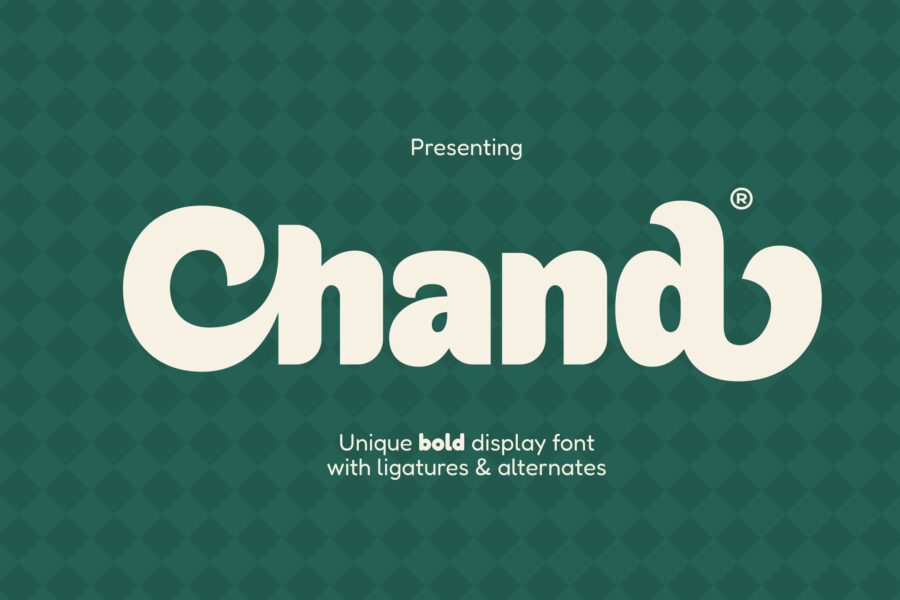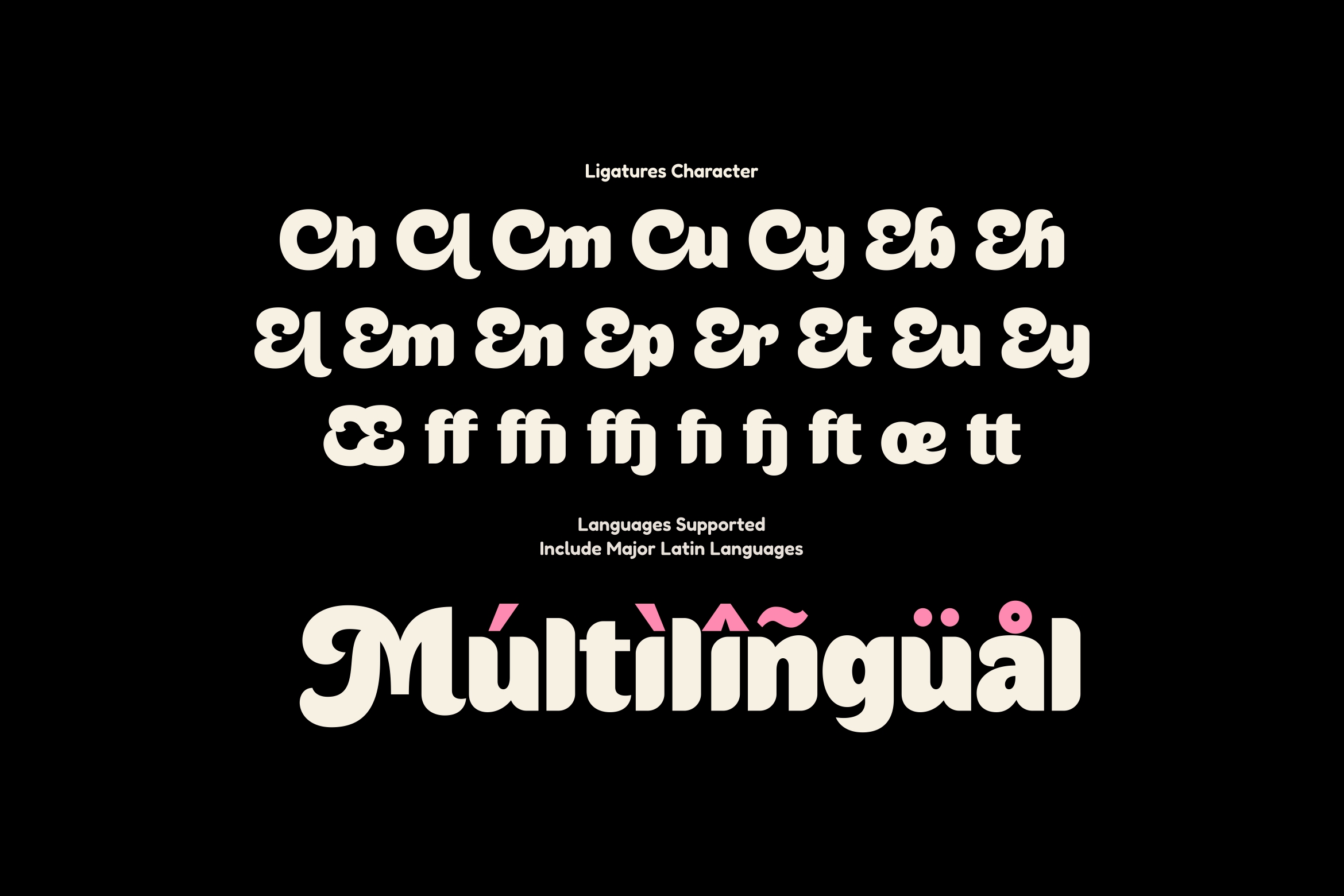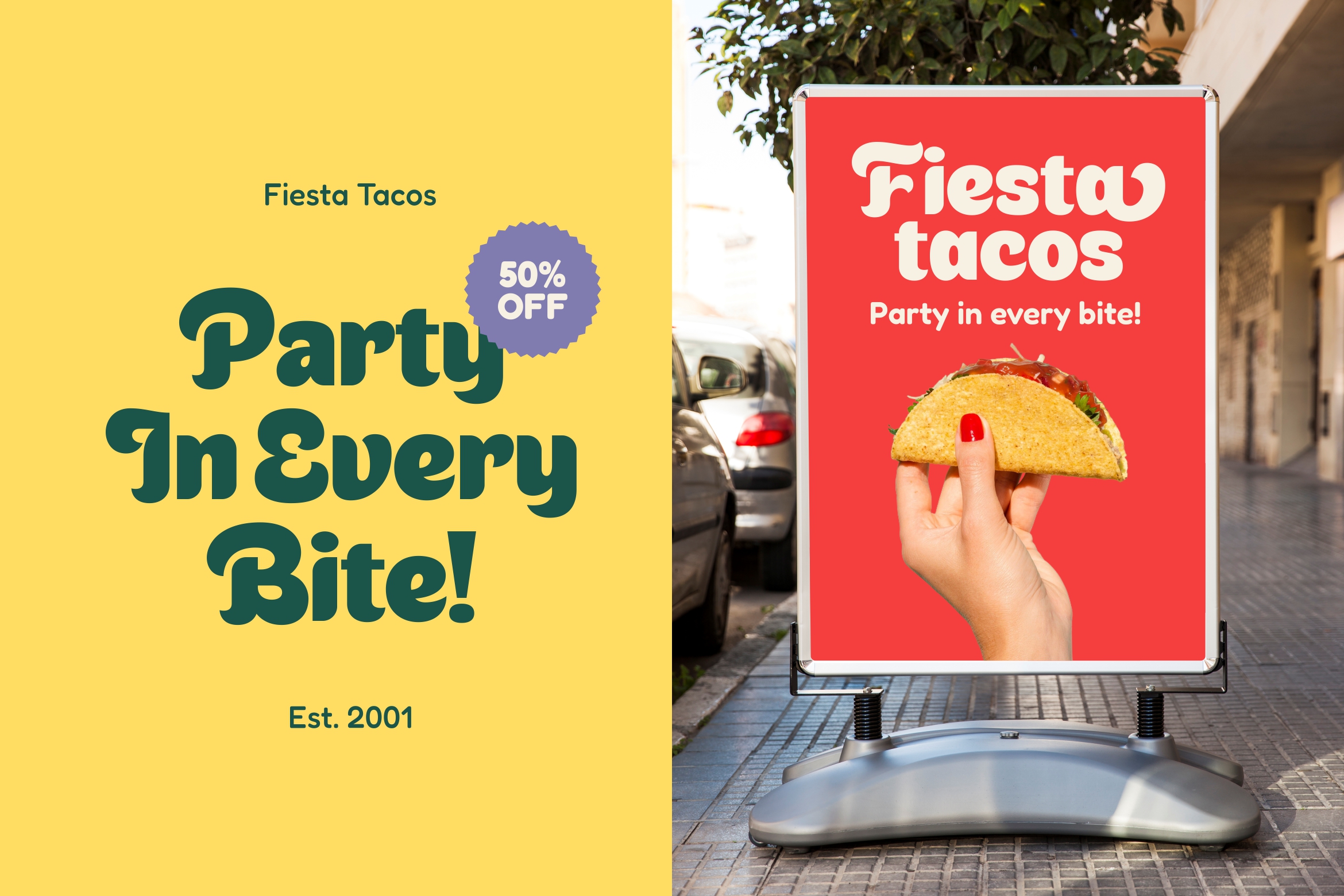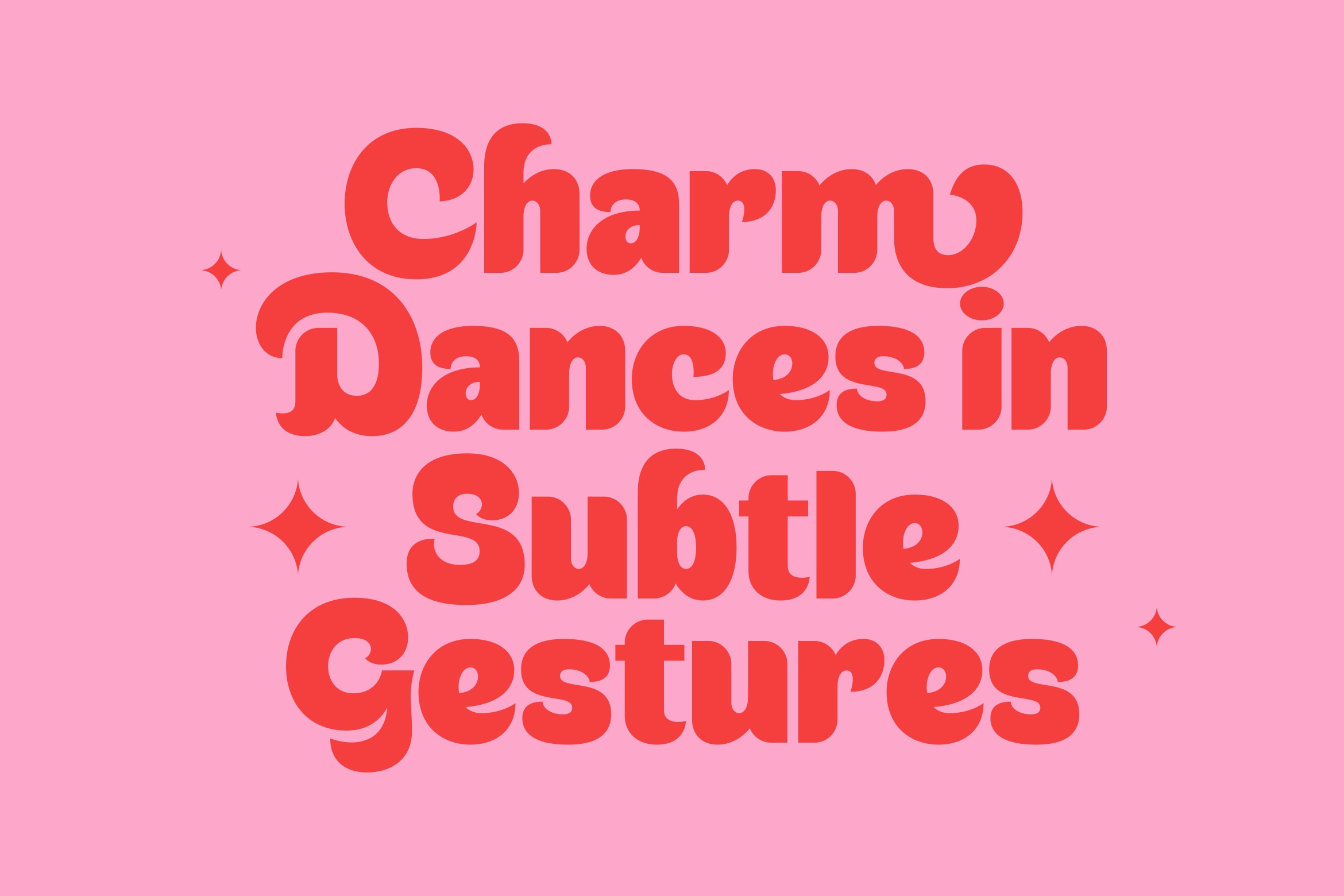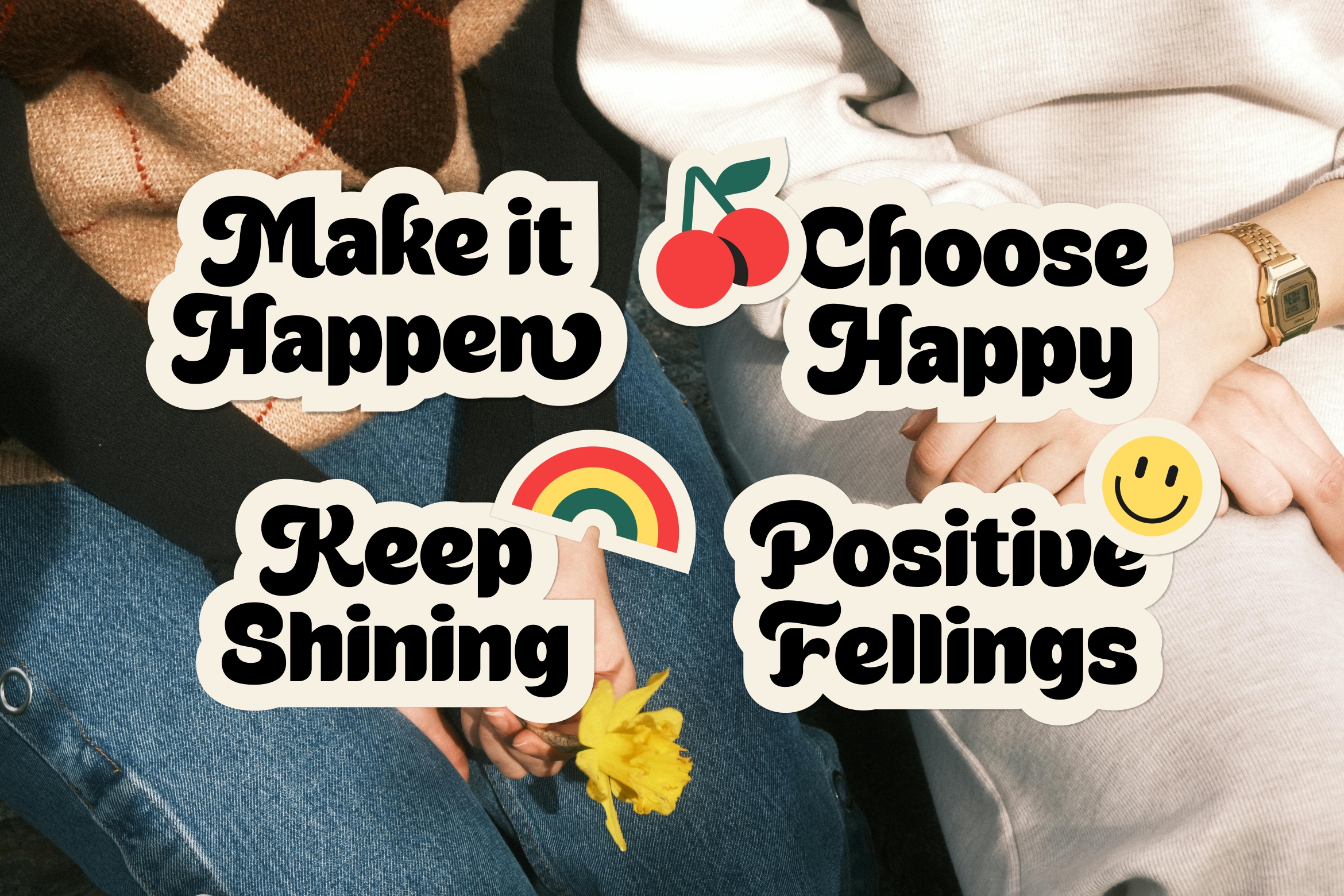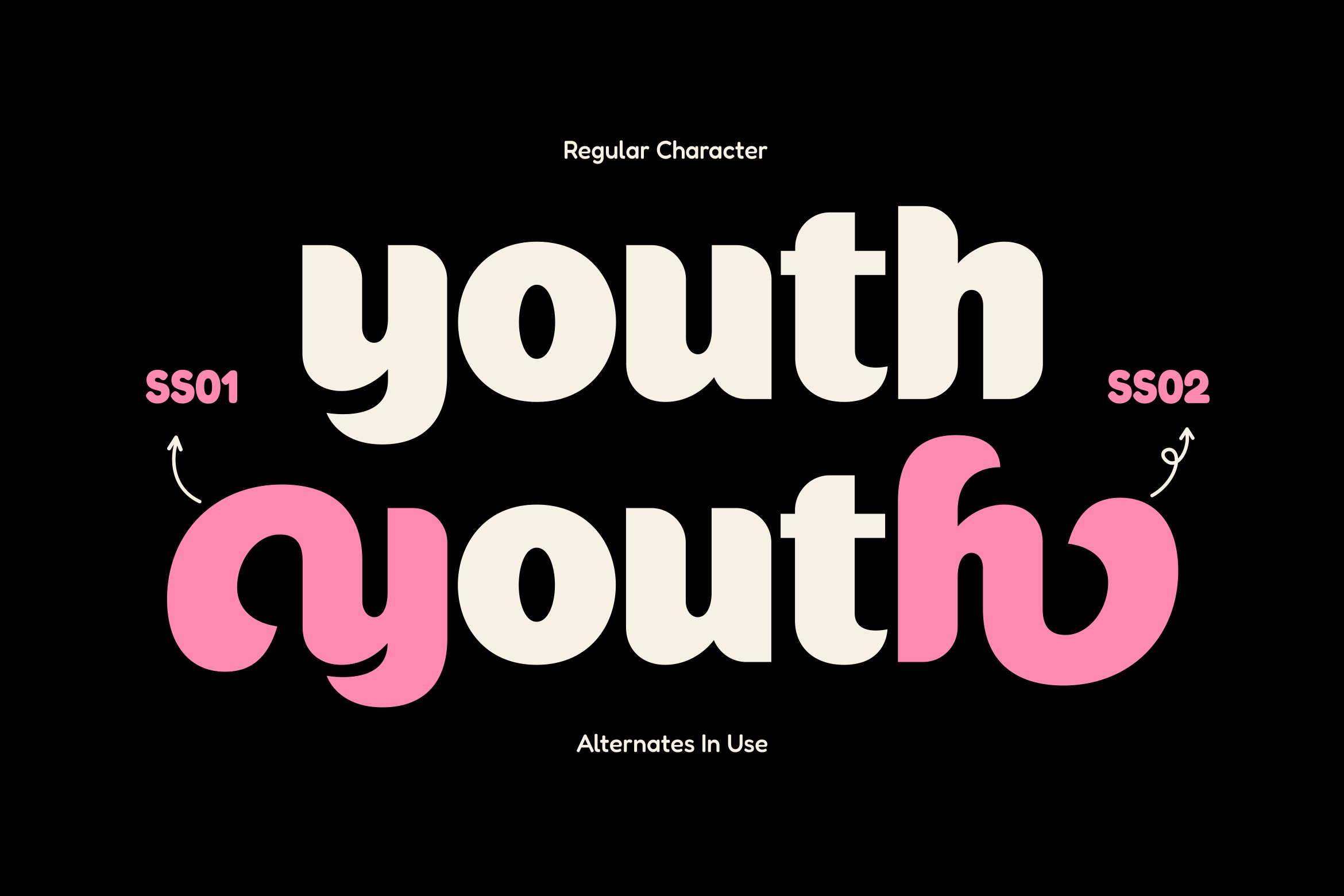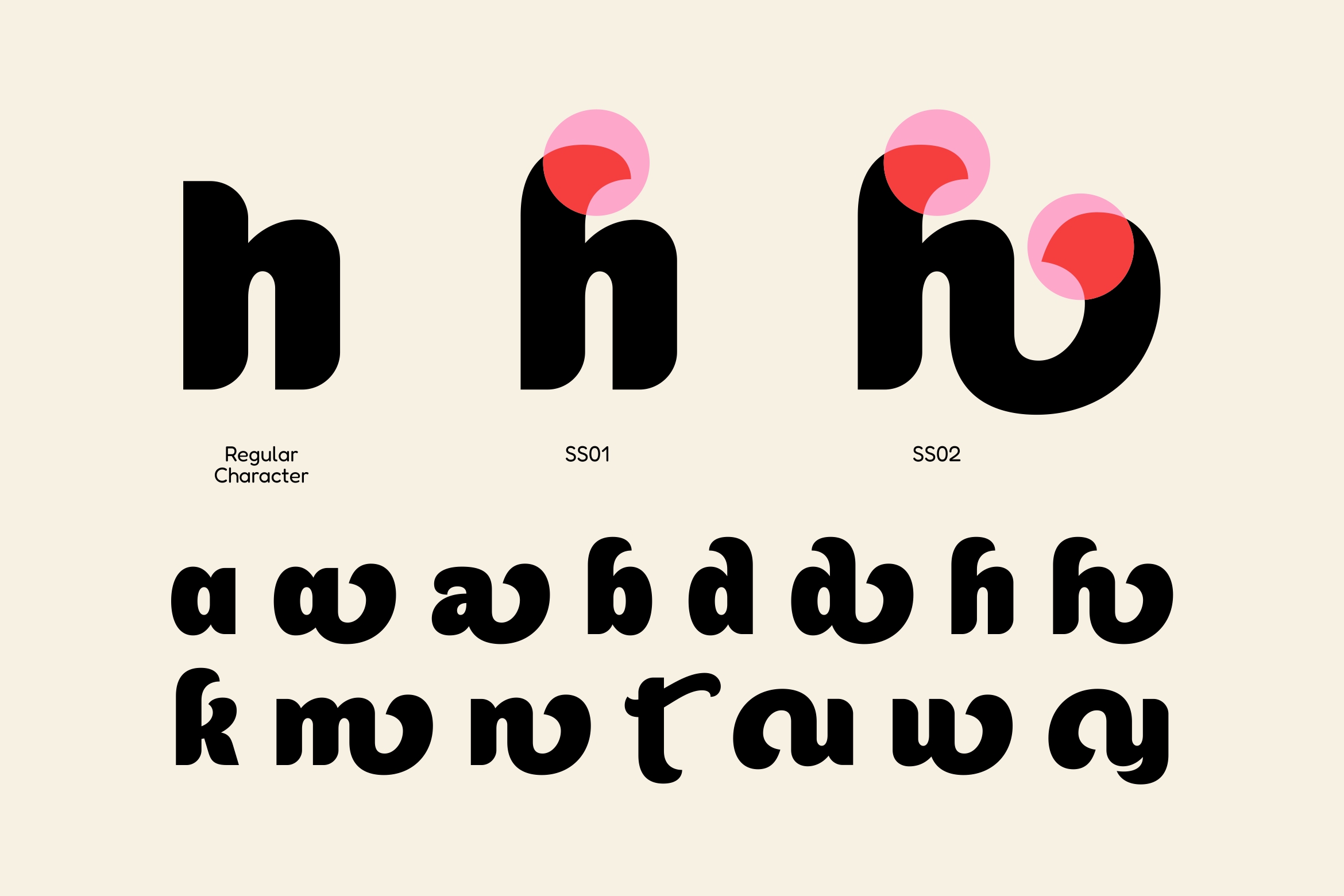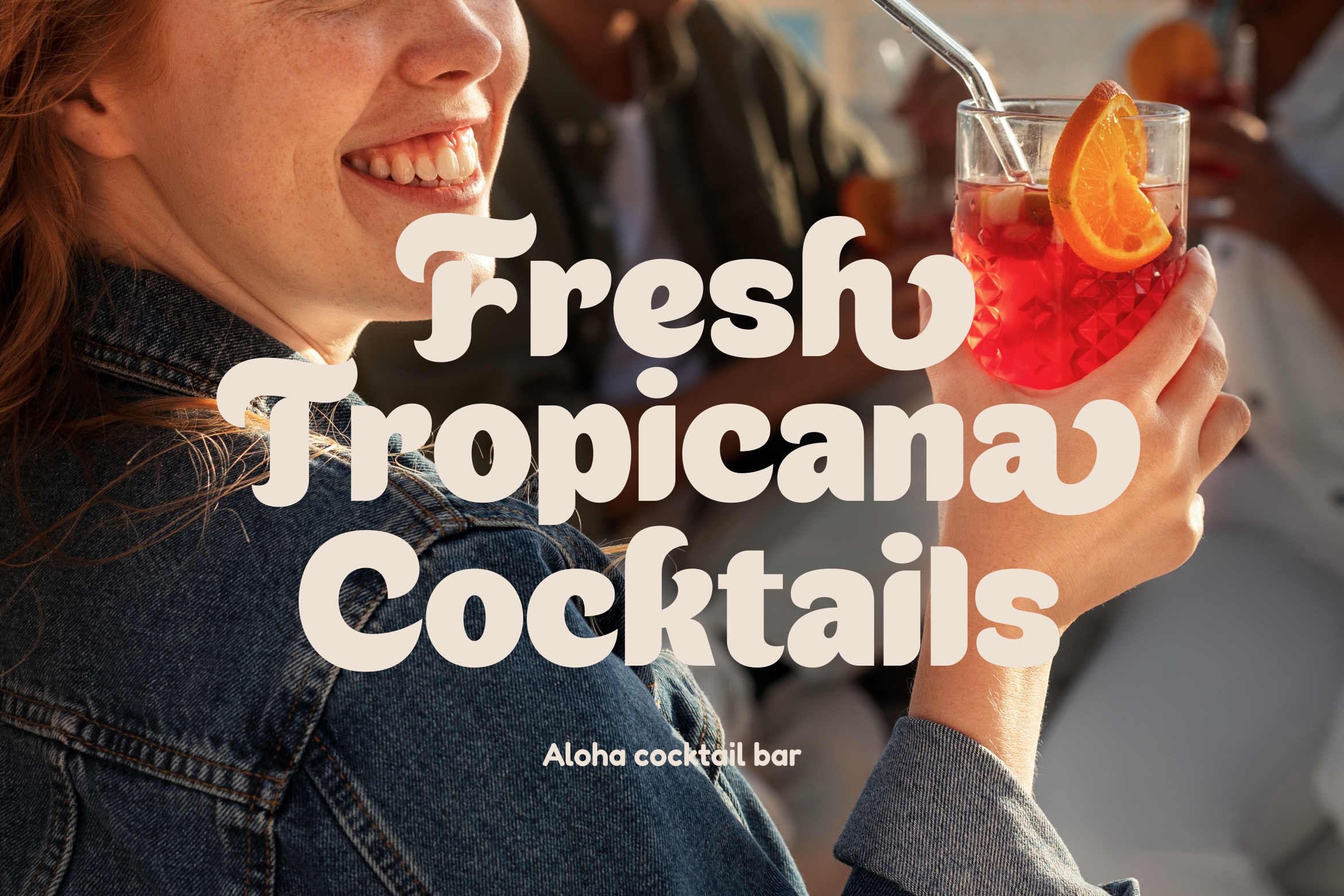
Chand
Chand is a bubbly and charming bold display font designed for joyful branding and expressive typography. With soft curves and playful terminals, Chand brings a retro-modern twist that makes it ideal for social media graphics, stickers, logos, and packaging. It’s fun, approachable, and irresistibly friendly.
Featuring multiple stylistic alternates, ligatures, and support for Latin-based languages, Chand provides versatility for bold messaging while maintaining personality. It’s perfect for lifestyle brands, children’s products, or any project that wants to radiate positivity and warmth.